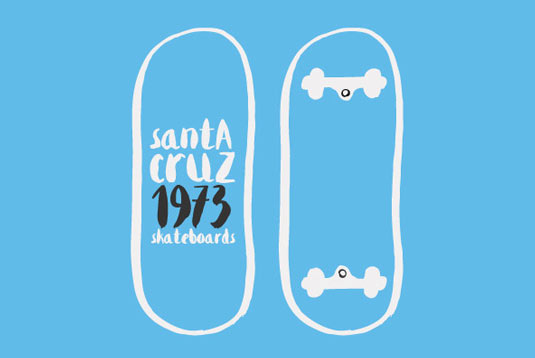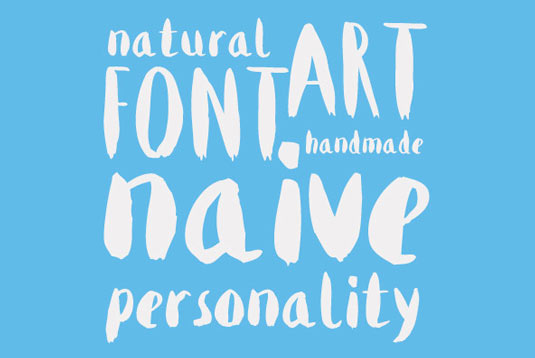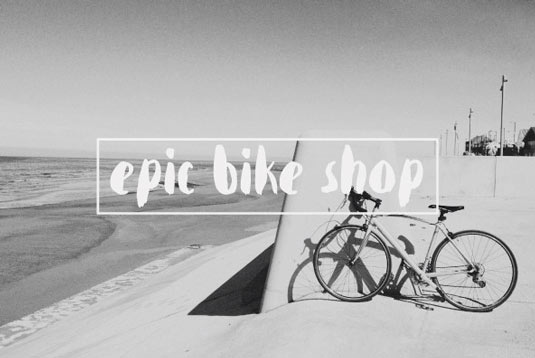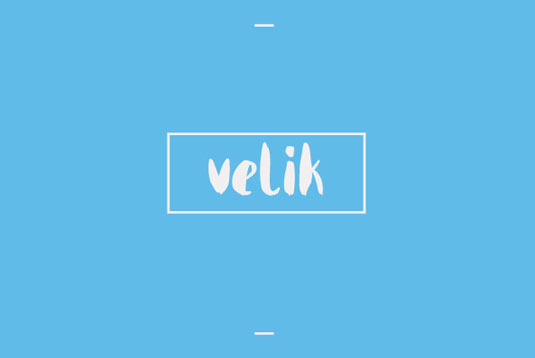
Font of the day: Velik
Velik by Jonathan Hill
Today's font of choice, Velik, was created by designer Jonathan Hill. "Velik is a hand-drawn typeface, originally painted in ink and translated into a digital format for you to work and play with," Hill comments. "My font journey so far was about embracing love for rational geometry but there is another child like part of my personality that I always wanted to express in work. Velik was inspired by my background in illustration.
"The font can be characterised as fresh and naive. It uses personality and vibrance. Velik can be used across various projects, suitable for display and text. Details include 445 characters and manually edited kerning."